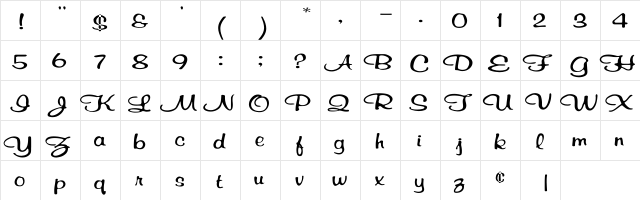
RSRichardMurray Ex Regular
Design Context for RSRichardMurray Ex Typeface
RSRichardMurray Ex is a composed and adaptable typeface that performs quietly and consistently across a wide range of design contexts.